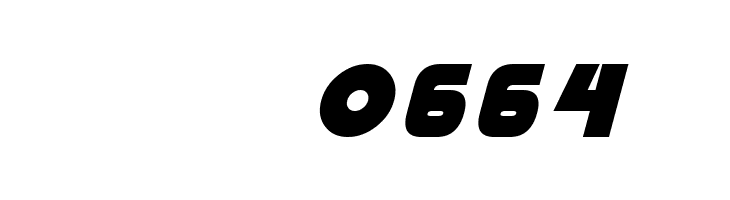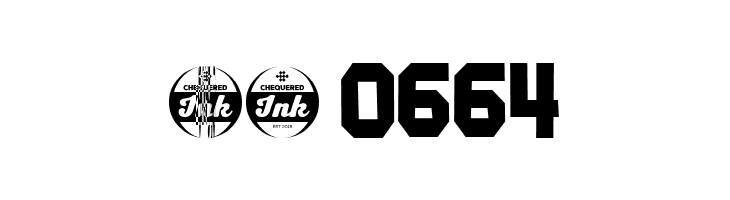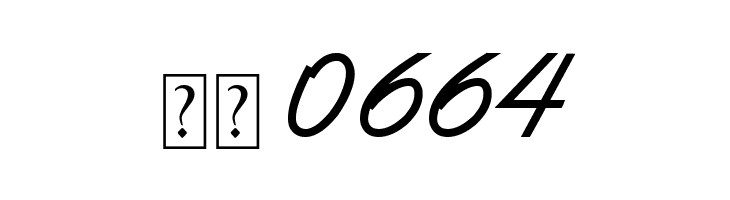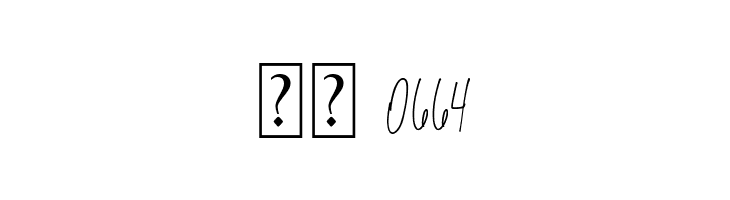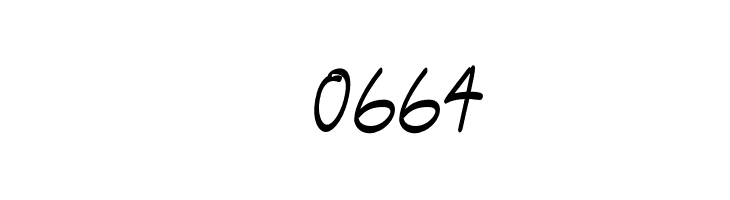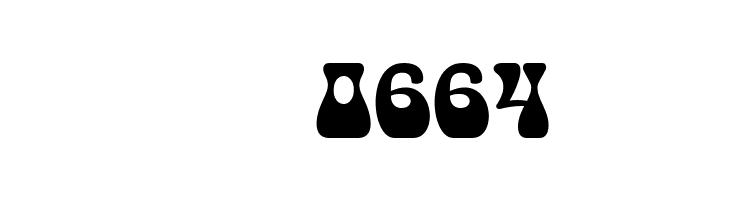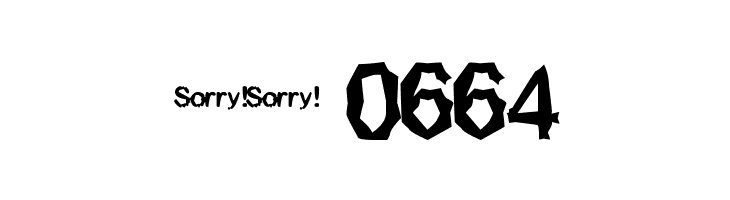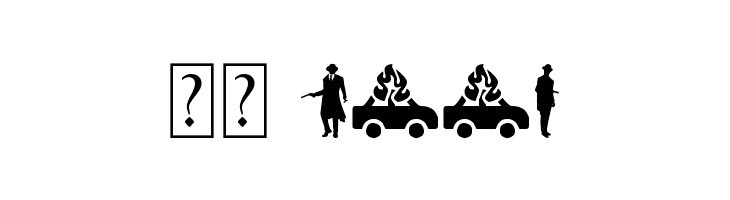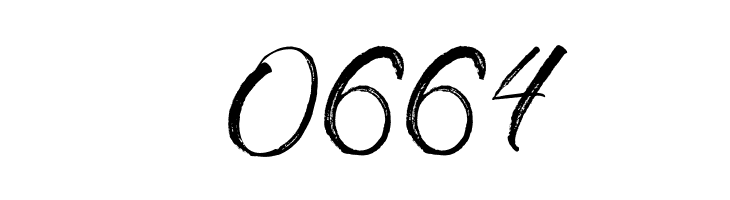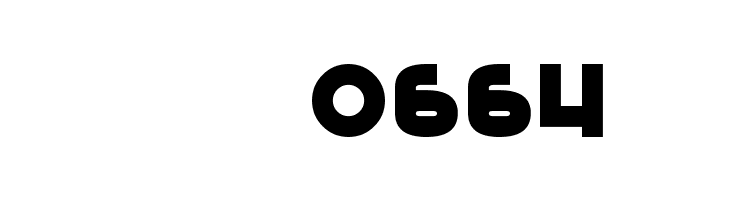
A bold, 3D font with a filled interior and striking outline, perfect for dynamic designs.
A bold, angular font with a geometric and edgy design.
A bold, angular font with a geometric and modern style.
An elegant and flowing script font with classic cursive letterforms.
A bold, decorative font with a collegiate, vintage style.
A bold, dynamic font with sharp, angular strokes and a modern, edgy style.
A bold, geometric font with a three-dimensional effect and strong, angular characters.
A bold, geometric font with a modern, edgy aesthetic and a unique glitch effect.
A bold, italic font with a modern, glitch effect.
An elegant script font with graceful, flowing strokes and delicate curves.
A dynamic and elegant script font with flowing, cursive design and intricate swashes.
A bold, flowing script font with elegant cursive letterforms.
A sophisticated and elegant handwritten font with fluid, connected letterforms.
An ornate Blackletter font with distressed, vintage appeal.
A bold, jagged font with sharp, angular shapes for an edgy look.
A playful and elegant handwritten font with flowing cursive letterforms.
A playful and elegant handwritten font with fluid, flowing letterforms.
A graceful script font with fluid, elegant strokes and a handwritten feel.
A bold, retro-inspired decorative font with organic, playful shapes.
A lively handwritten font with fluid, slightly irregular strokes.
A cursive, script-style font with elegant, flowing strokes.
A lively and elegant script font with fluid, cursive strokes.
A playful, rounded font with a hand-drawn, whimsical style.
A bold, brush-stroke style font with a hand-painted, artistic feel.
A fluid and elegant script font with dynamic curves and intricate details.
Bold pictogram set with a mafia and crime theme.
A bold, brush-style font with high contrast and dynamic strokes.